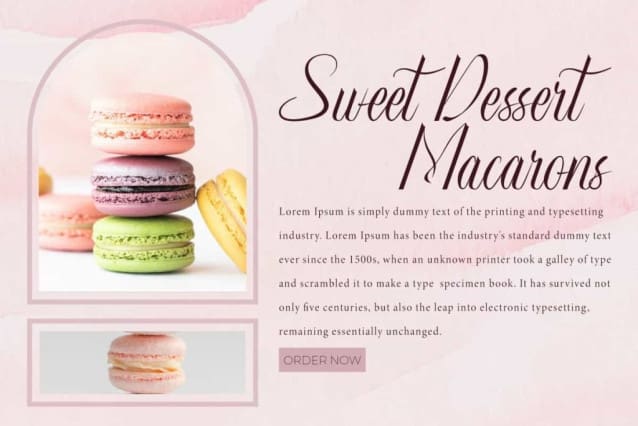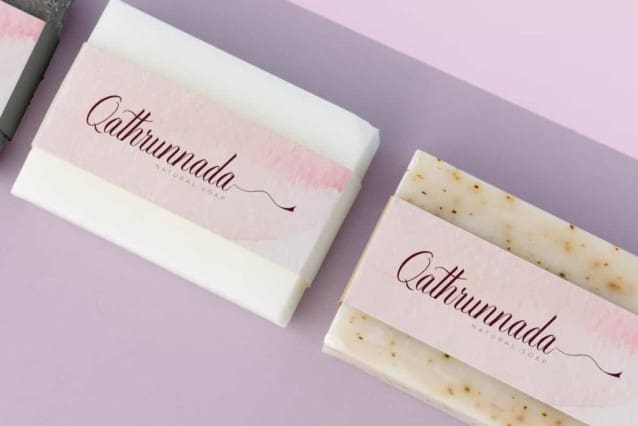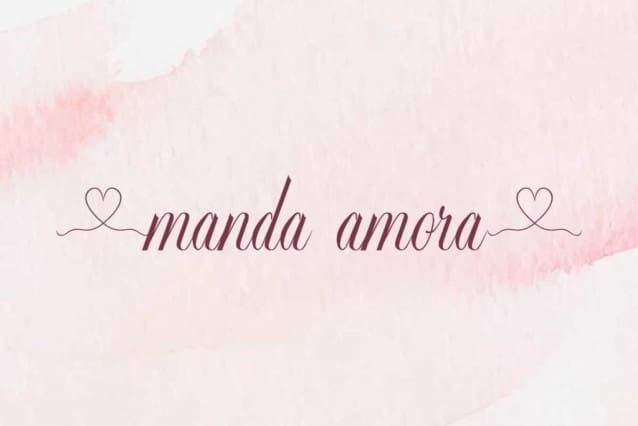
Manda Amora Font
Manda Amora Font is a stunning calligraphy script font with a cute handwritten romantic style. This font have an original handwritten style with unique look. It will be good for many designs, such as brochure, cover, custom design, gift box, invitation, label, poster, product packaging, quotes, screen printing, stationery, website, and more!
Manda Amora Font includes a complete set of Uppercase and Lowercase Basic Characters, Numbers, Punctuation, Symbols, Ligature and Swoosh characters. The font will be great for any industry, such as advertising, cafes, event or wedding organizer, fashion, furniture, handicrafts, jewelry, resort, restaurant, spa and salon, etc.